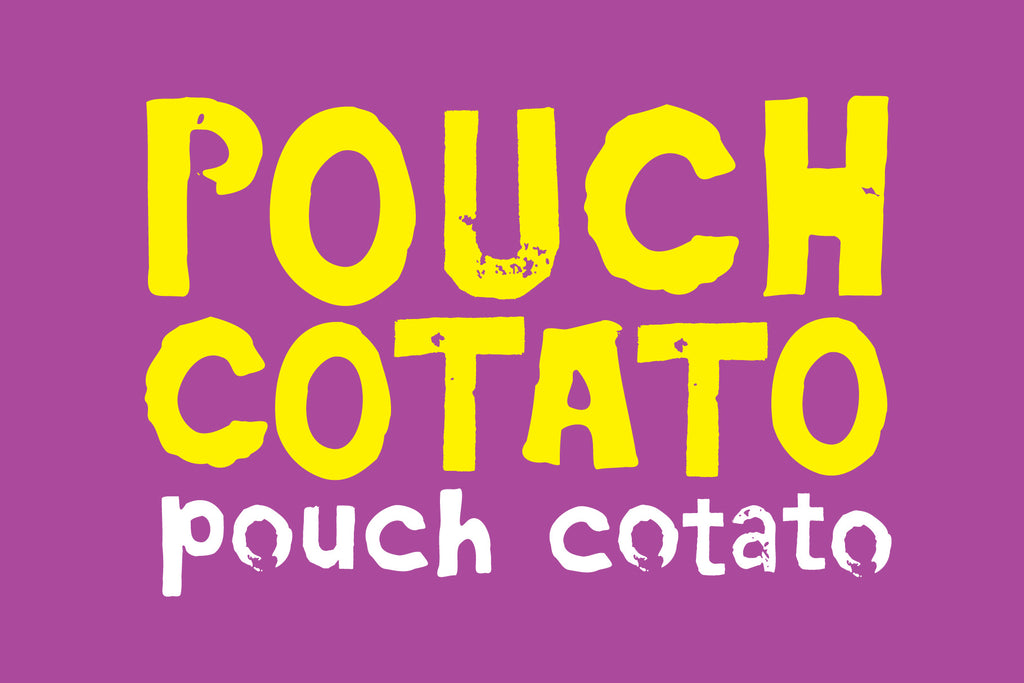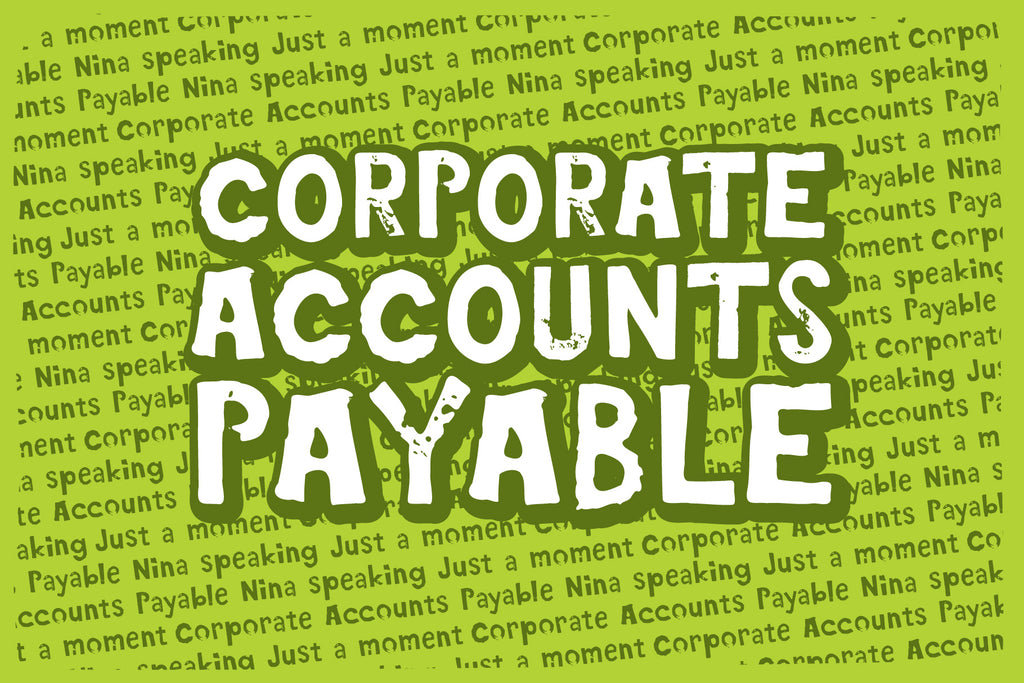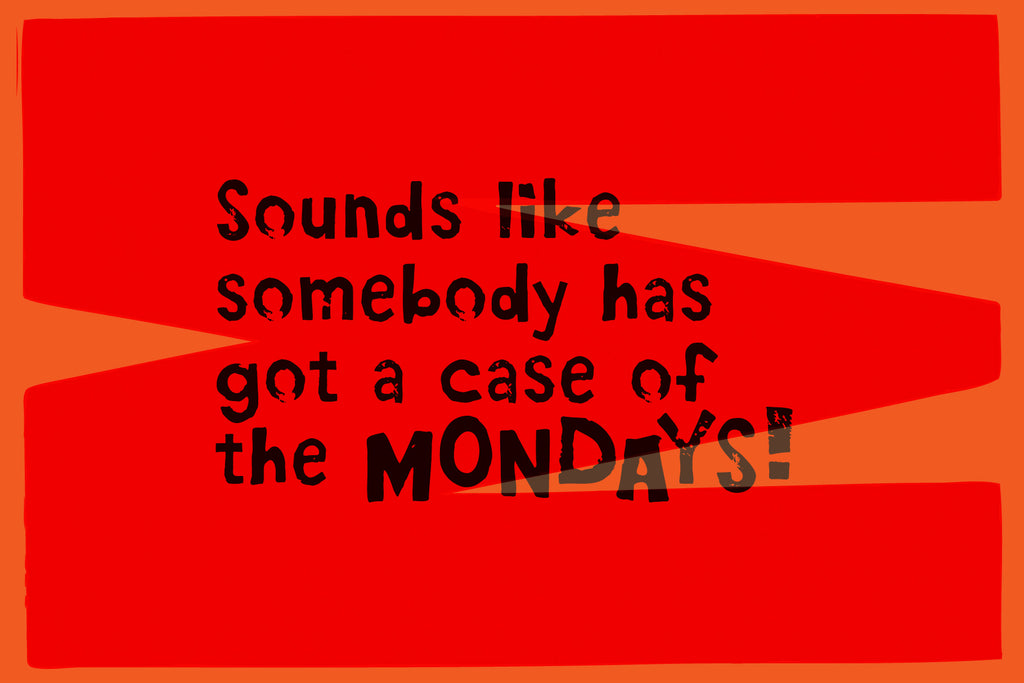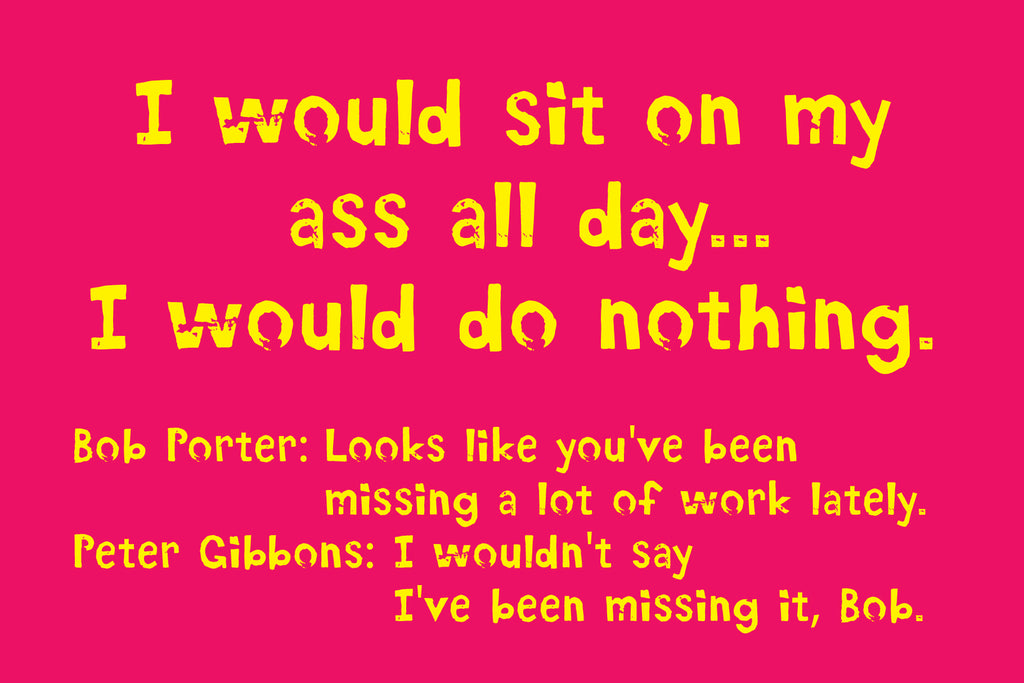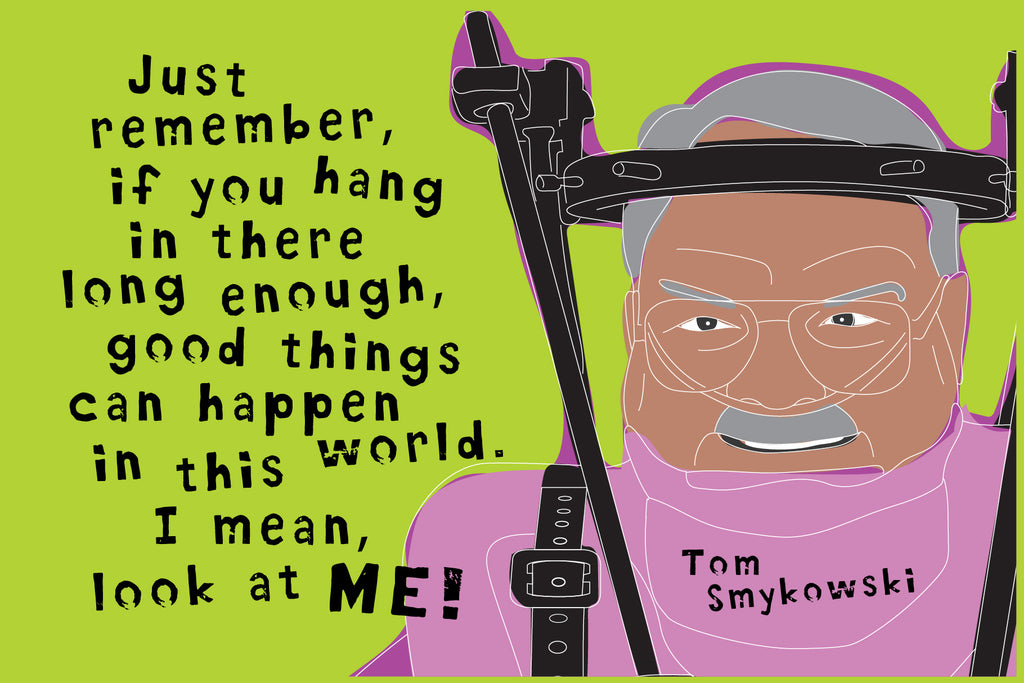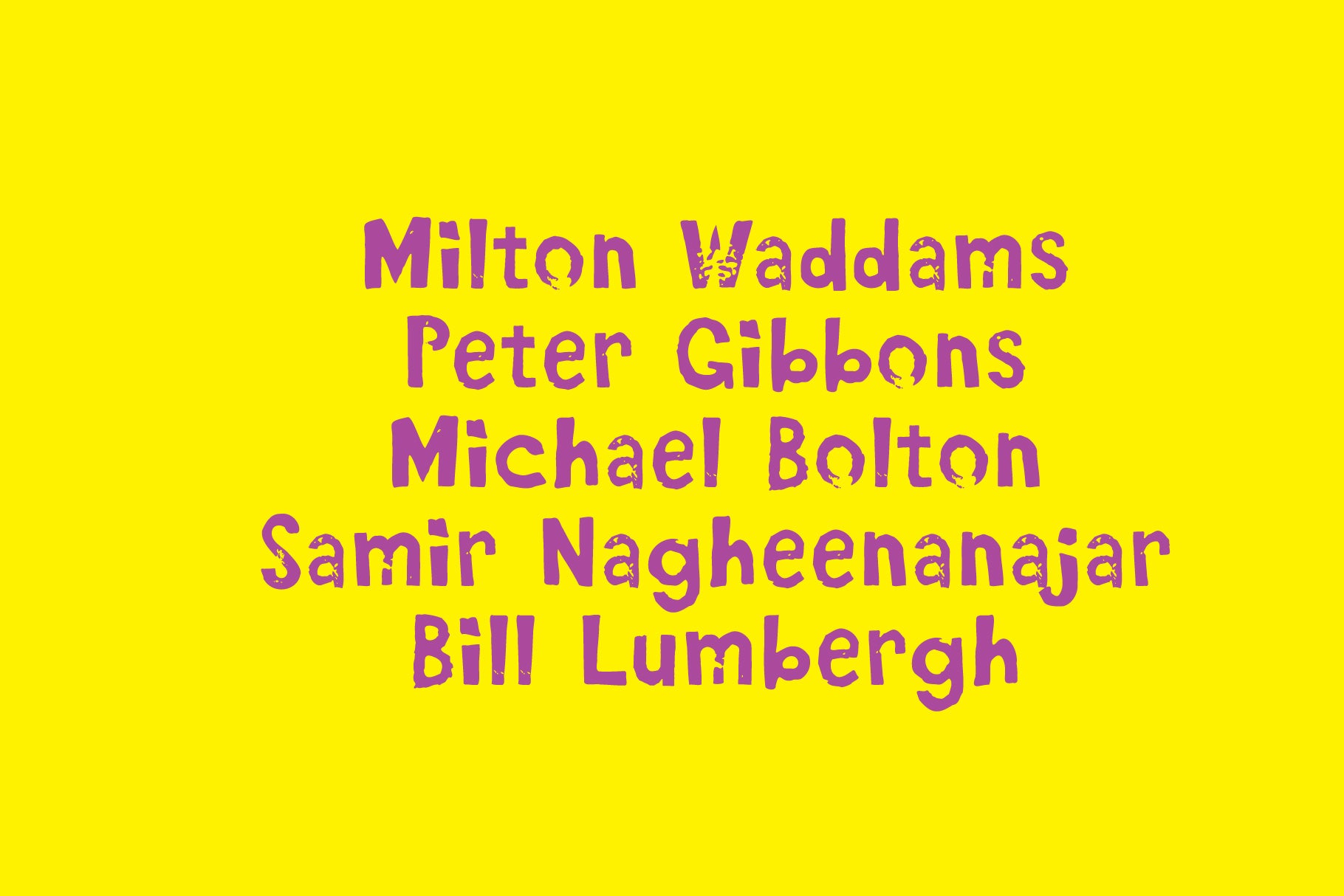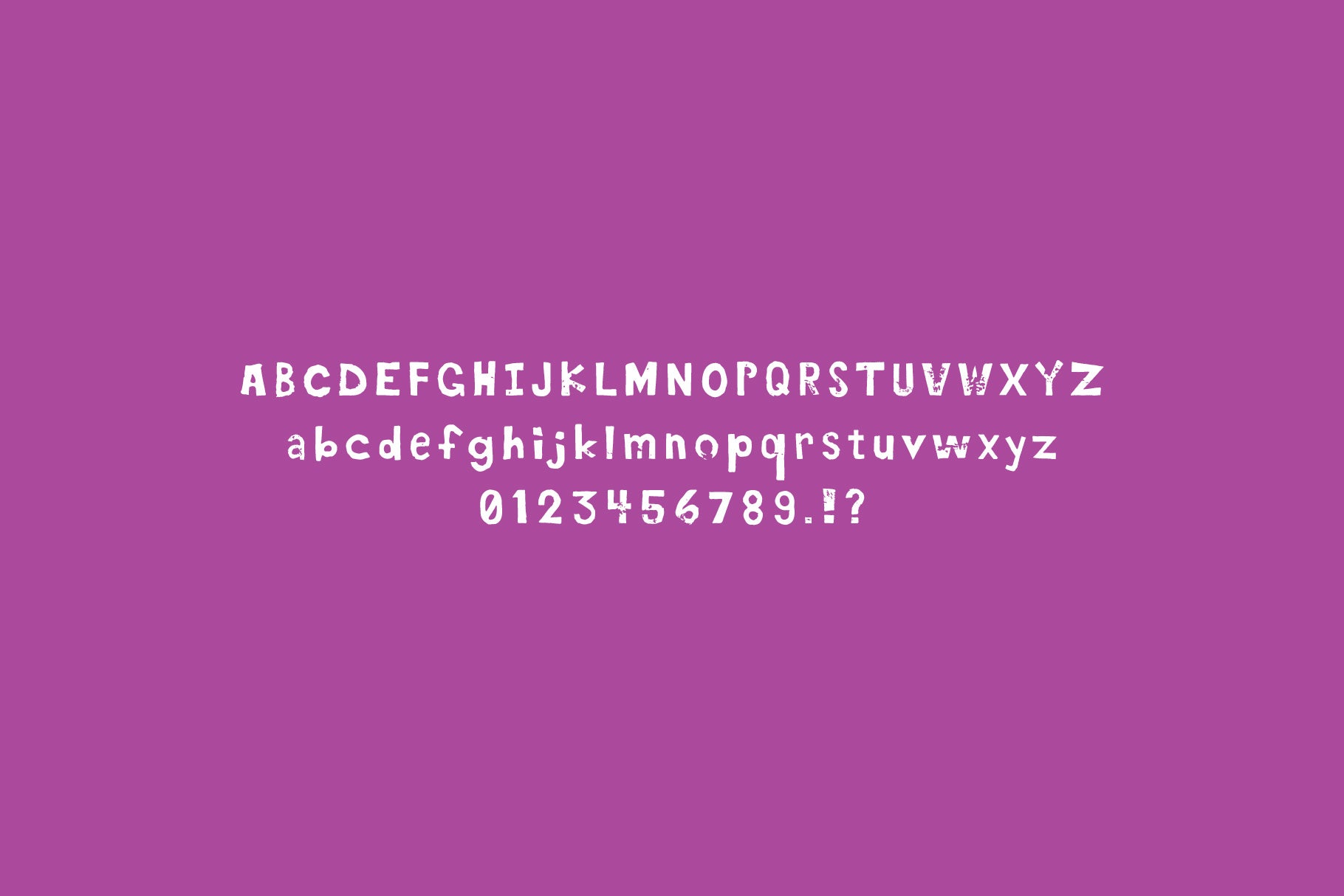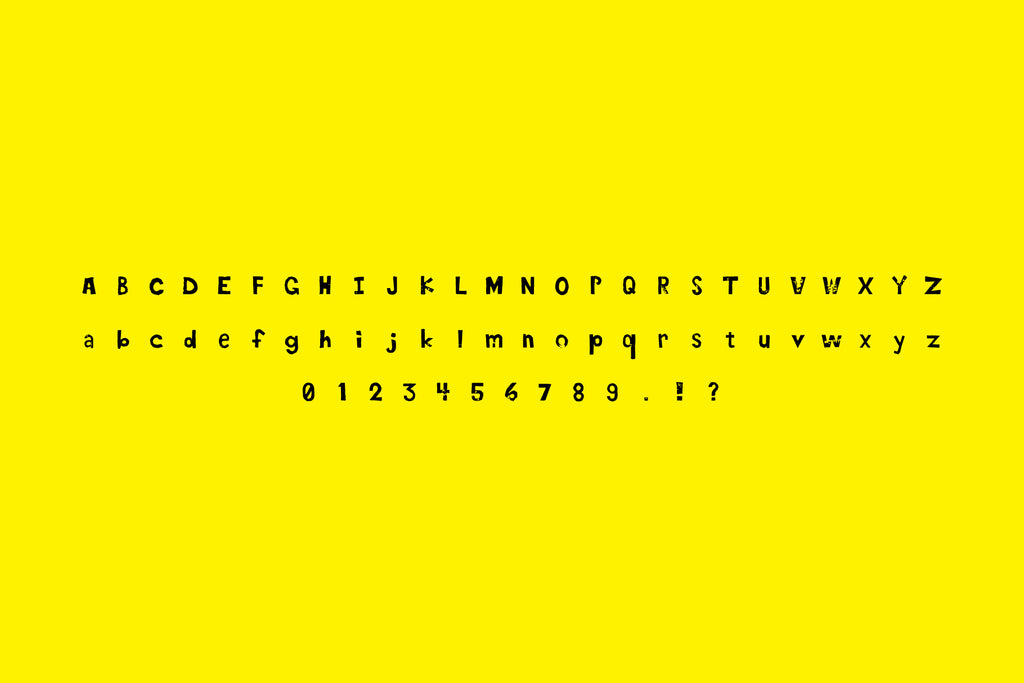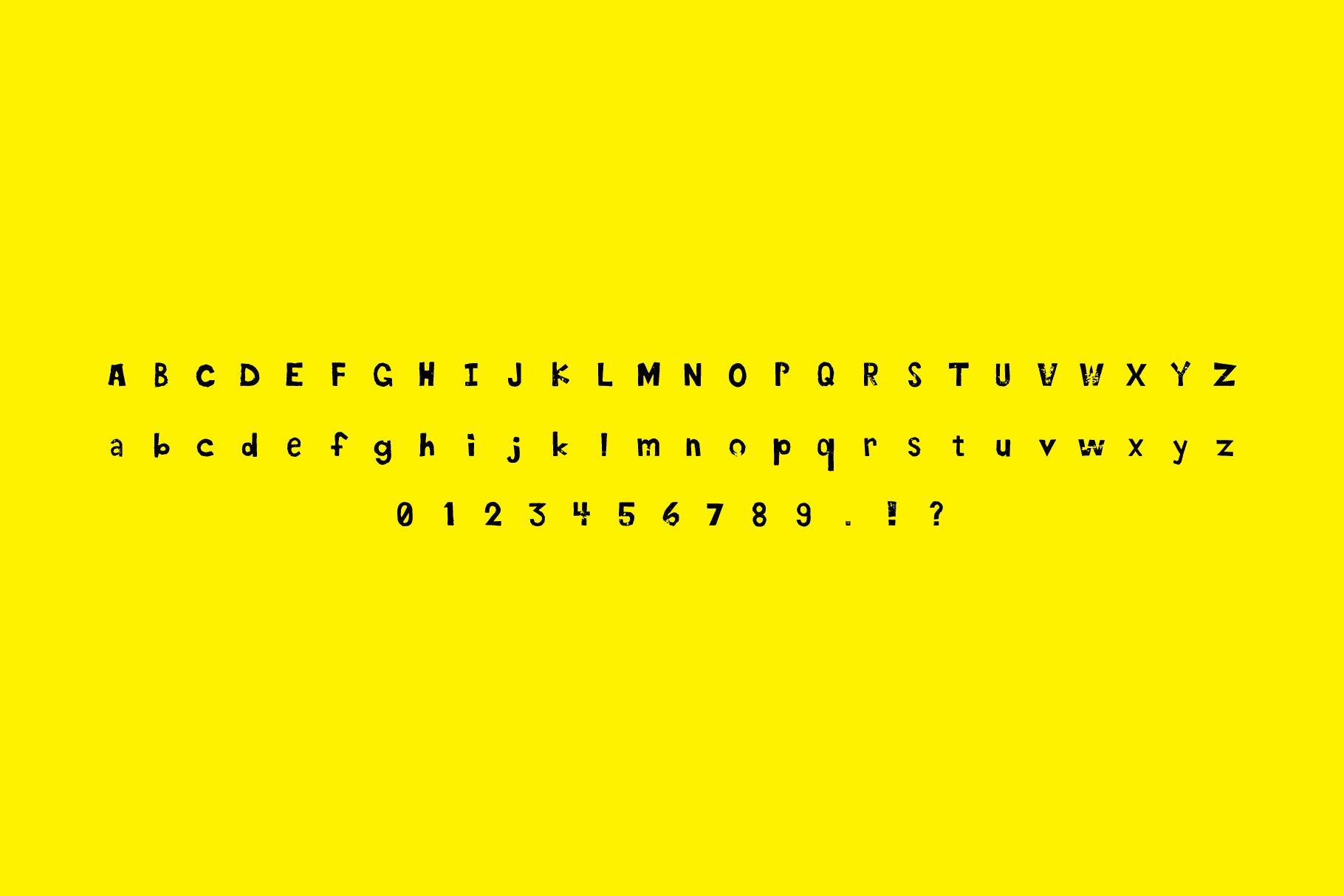
Pouch Cotato Typeface
Pouch Cotato is an unapologetically low-tech, high-character display typeface. Each glyph was hand-carved into a potato and stamped repeatedly without re-inking, allowing the ink to break down naturally across impressions. The result is three distinct weights, growing lighter and more distressed with each pass.
This process creates organic inconsistencies, soft edge collapse, and unpredictable texture that no digital distress filter can fake. Pouch Cotato feels raw, handmade, and slightly unhinged—in the best way. It shines in bold headlines, DIY posters, underground branding, punk ephemera, food packaging, and any project that benefits from tactile imperfection and analog grit.
No two letters feel overly polished. Every character carries the evidence of pressure, ink loss, and material failure—making this font feel alive, human, and messy by design.